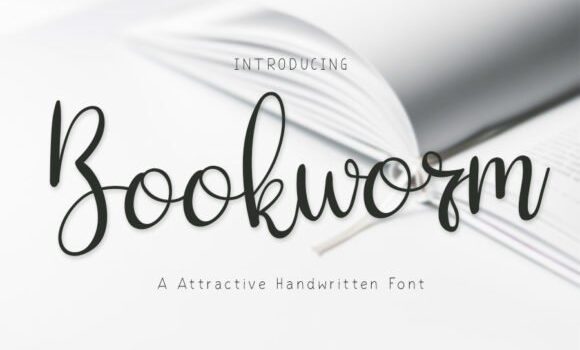
Bookworm Font – Free Download Introduction to Bookworm Font Bookwrom is a charming and sweet handwriting font, that exudes elegance and class. 📸 Preview Gallery 3 images 📌 Product Name Bookworm Font 👤 Author Creassion Studio 📂 Category Explore ⬇️